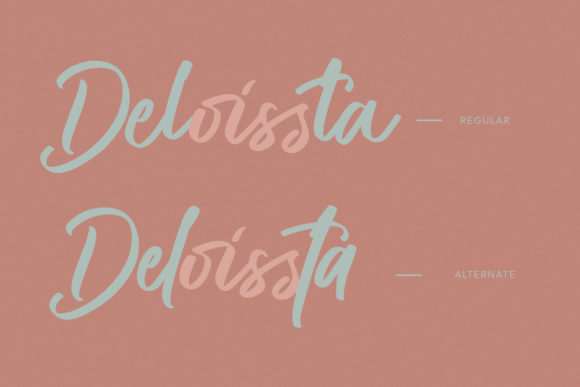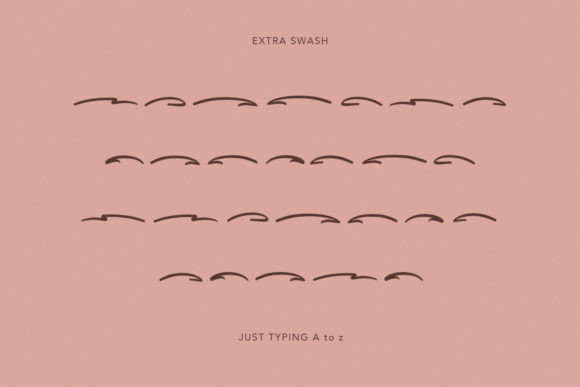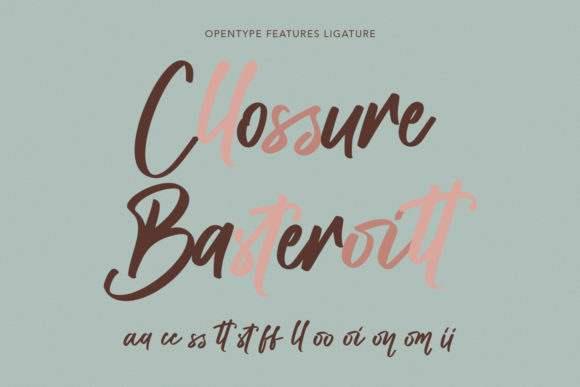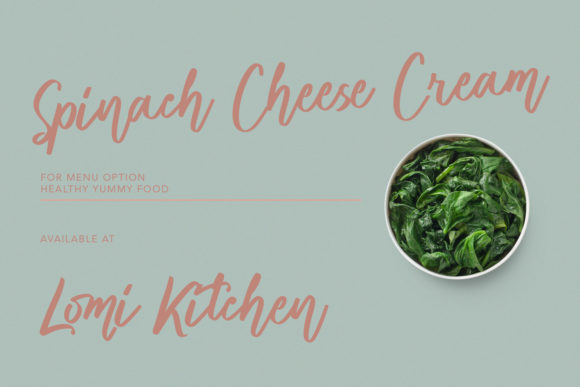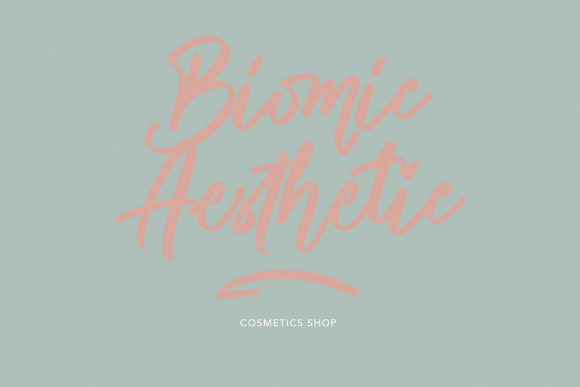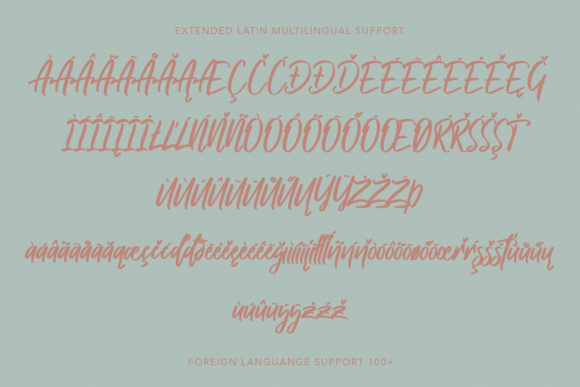
The Deloissta Font: A Sweet and Cursive Handwritten Gem
Ah, the elusive perfect font. You know, that one that makes your design project go from meh to mesmerizing. I’ve been there, done that, and got the t-shirt (which, coincidentally, was designed with a fabulous font). But today, I want to share with you a delightful discovery that’s made my design life a whole lot sweeter: the Deloissta font.
A Personal Design Moment: The Struggle is Real
I recall working on a wedding invitation project, and my client specifically asked for a “romantic and whimsical” feel. I scoured the internet, tried out a gazillion fonts, but nothing seemed to fit the bill. That was until I stumbled upon Deloissta. Its gentle, cursive strokes and sweet demeanor instantly won me over. It was love at first sight (or should I say, love at first click?).
So, what makes Deloissta so special? Here are a few things I absolutely adore:
- ✨ Sweet and romantic vibe: Deloissta exudes a sense of whimsy and playfulness, making it perfect for projects that require a touch of elegance and charm.
- ✅ Cursive handwritten feel: Its fluid strokes and connected letters create a beautiful, flowing script that’s sure to capture attention.
- 💕 Versatility: Deloissta can be used for a wide range of design projects, from wedding invitations and party decor to branding and packaging.
Now, no font is perfect, and Deloissta has a few minor quirks:
- 🤔 Limited character set: While Deloissta has a lovely selection of characters, it may not have every special character or glyph you need.
- ⚠️ Not ideal for body text: Due to its cursive nature, Deloissta is best suited for headlines, titles, and short paragraphs, rather than lengthy blocks of text.
- Experiment with OpenType features like ligatures and stylistic alternates to add more flair to your text.
Deloissta’s story begins with a designer who wanted to capture the essence of handwritten love letters in a digital font. Inspired by classic romantic scripts and a dash of modern playfulness, Deloissta was born. Though we may not know the designer’s name, their passion for creating something beautiful and timeless is evident in every stroke of Deloissta.
Q: What makes Deloissta unique?
A: Deloissta’s unique blend of sweetness, romance, and playfulness sets it apart from other script fonts.
Q: Is Deloissta suitable for body text?
A: While Deloissta is stunning, it’s best used for headlines, titles, or short paragraphs due to its cursive nature.